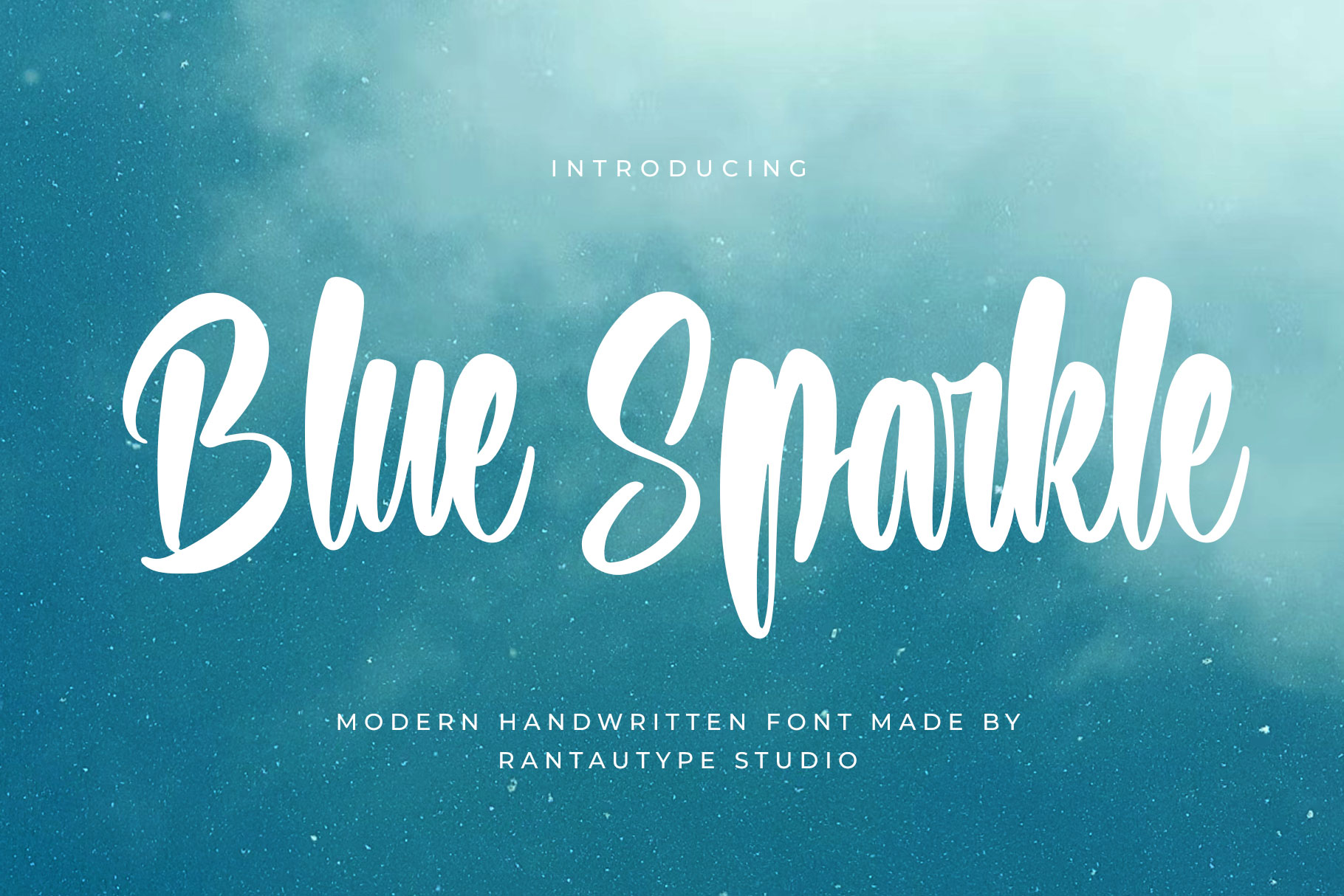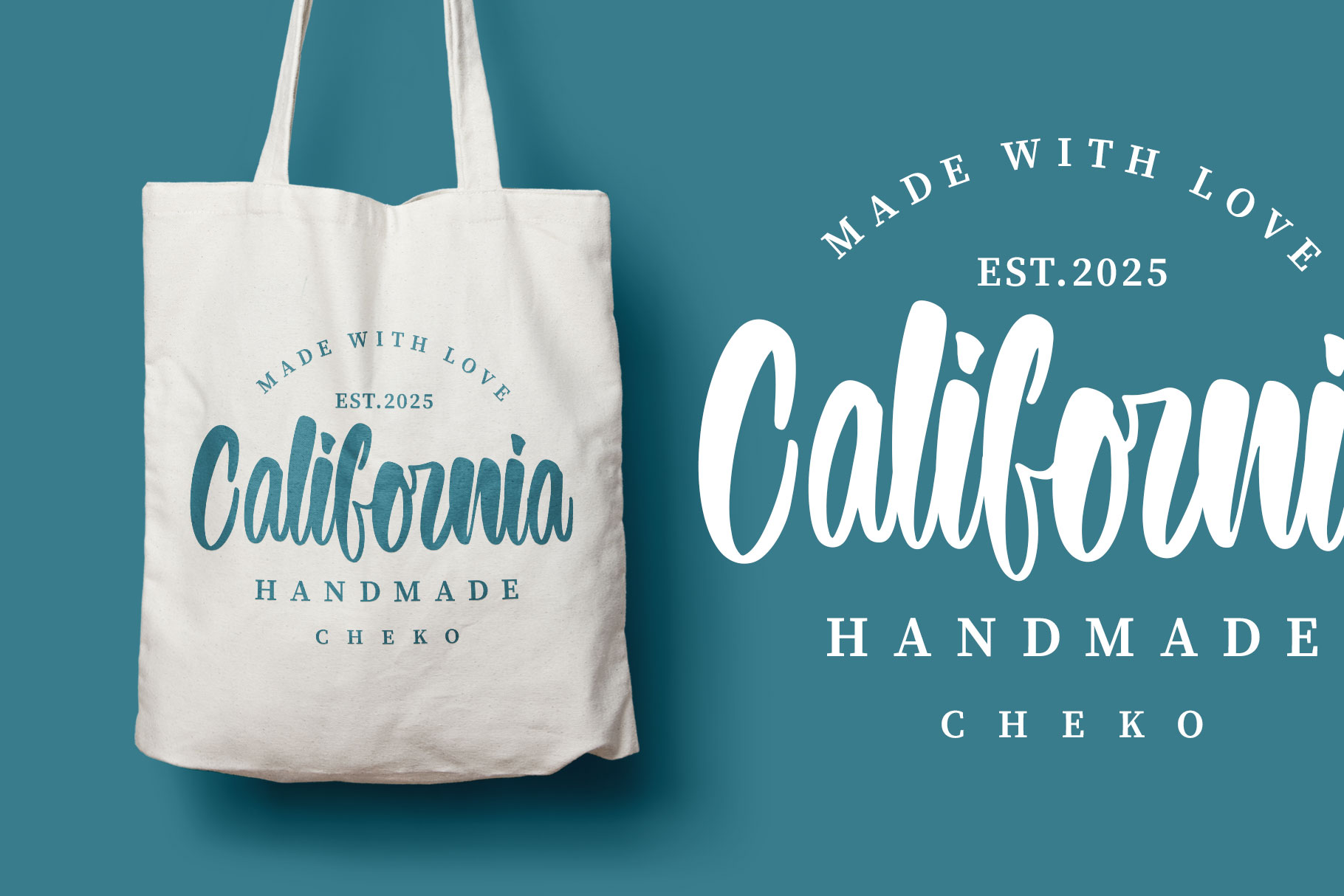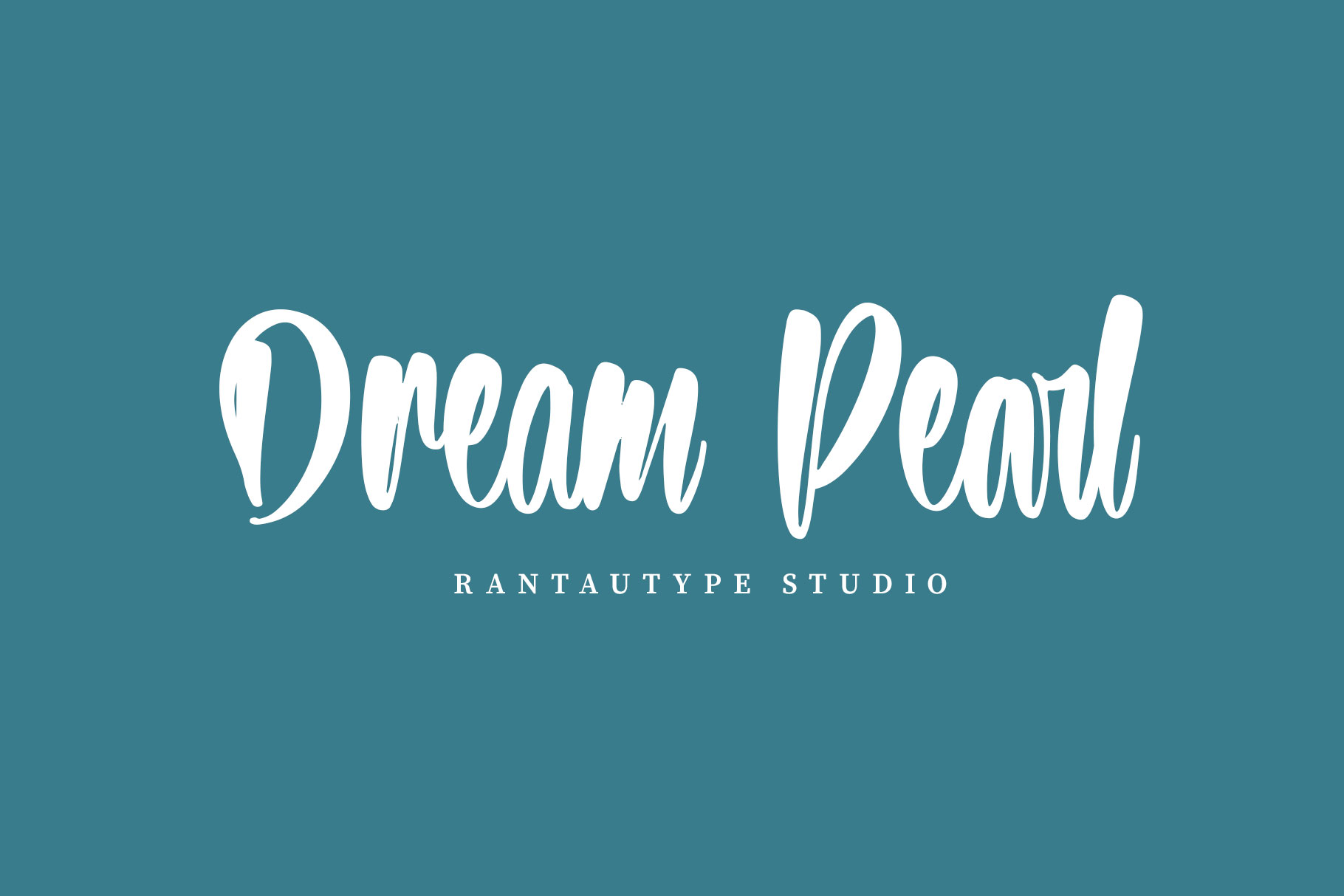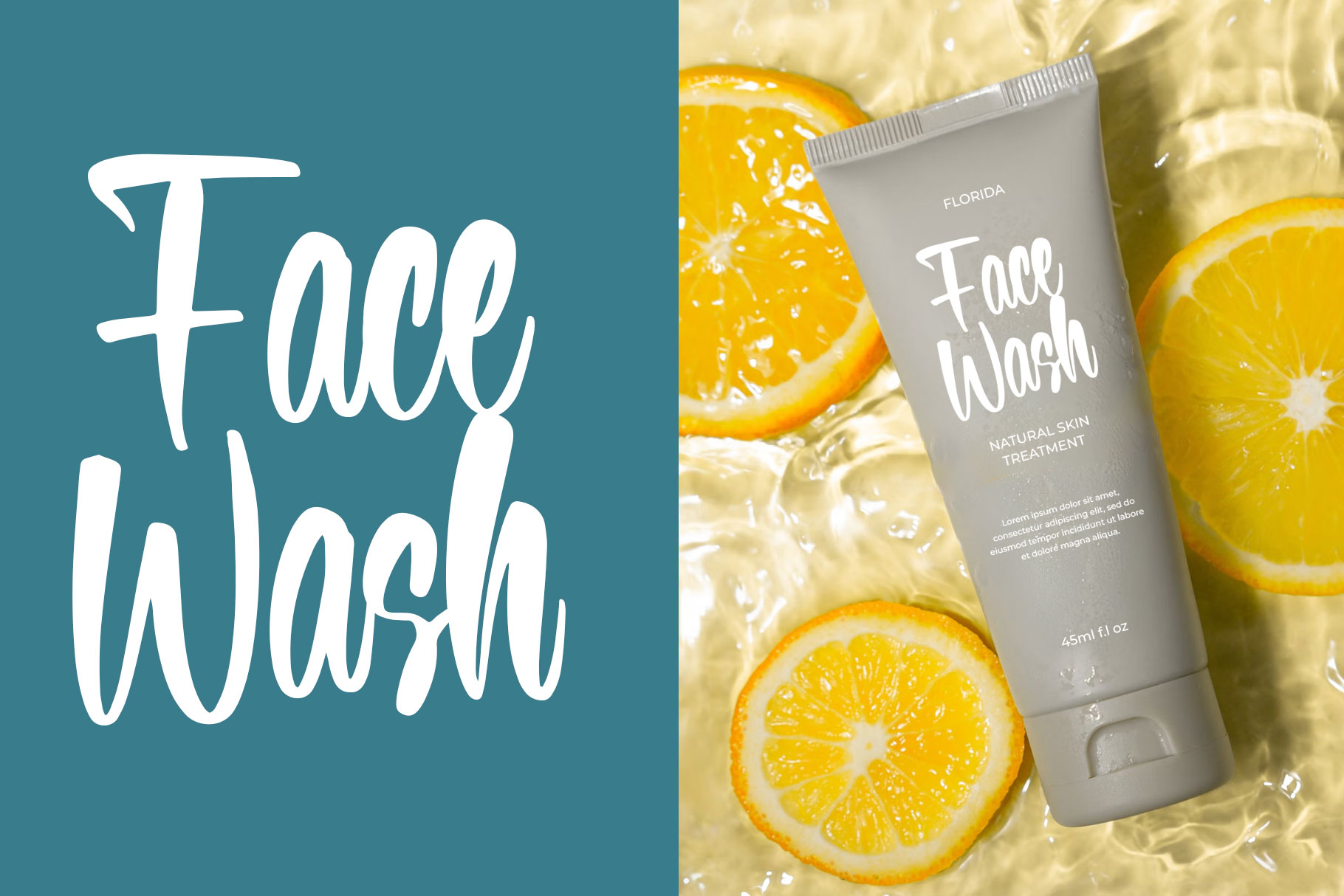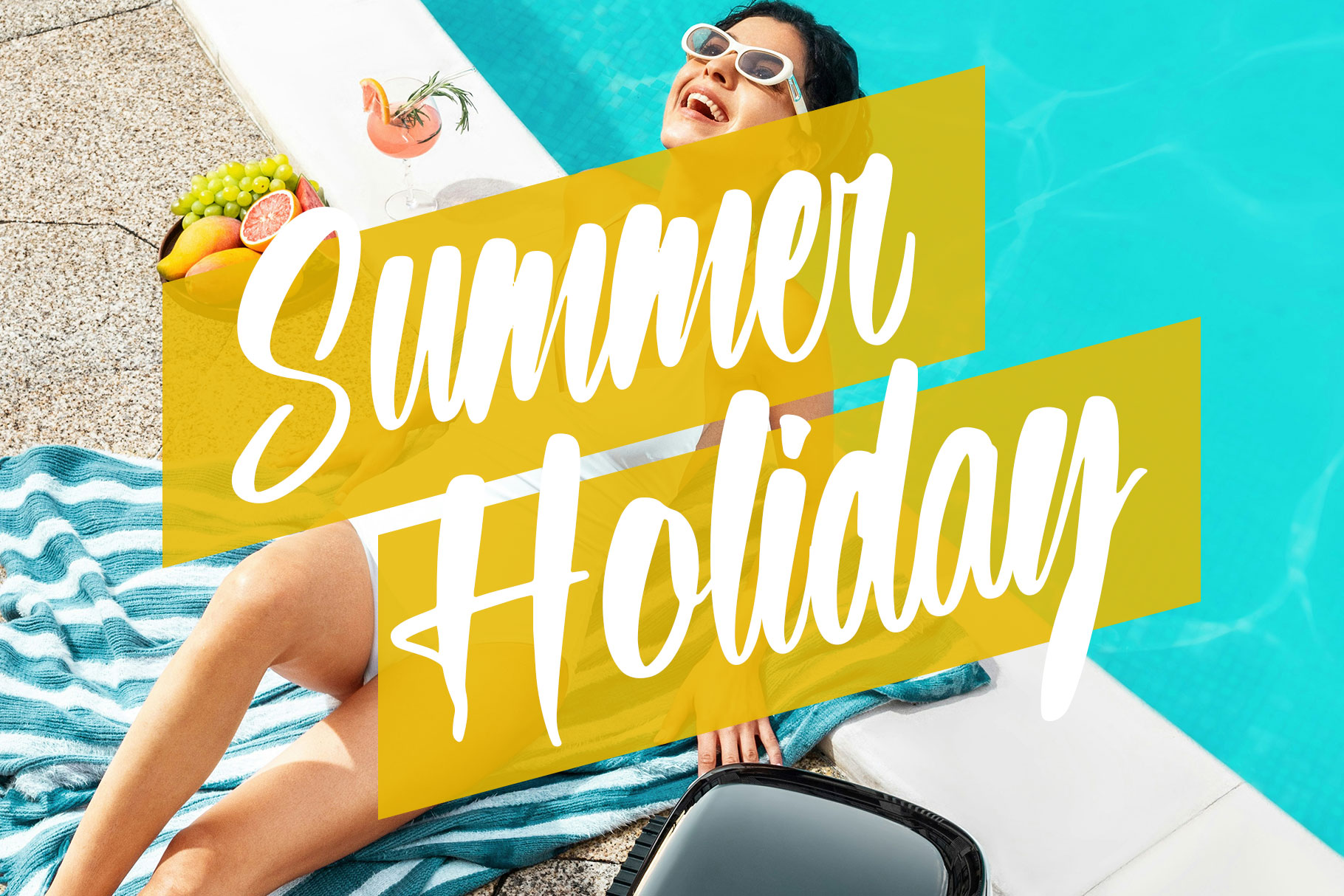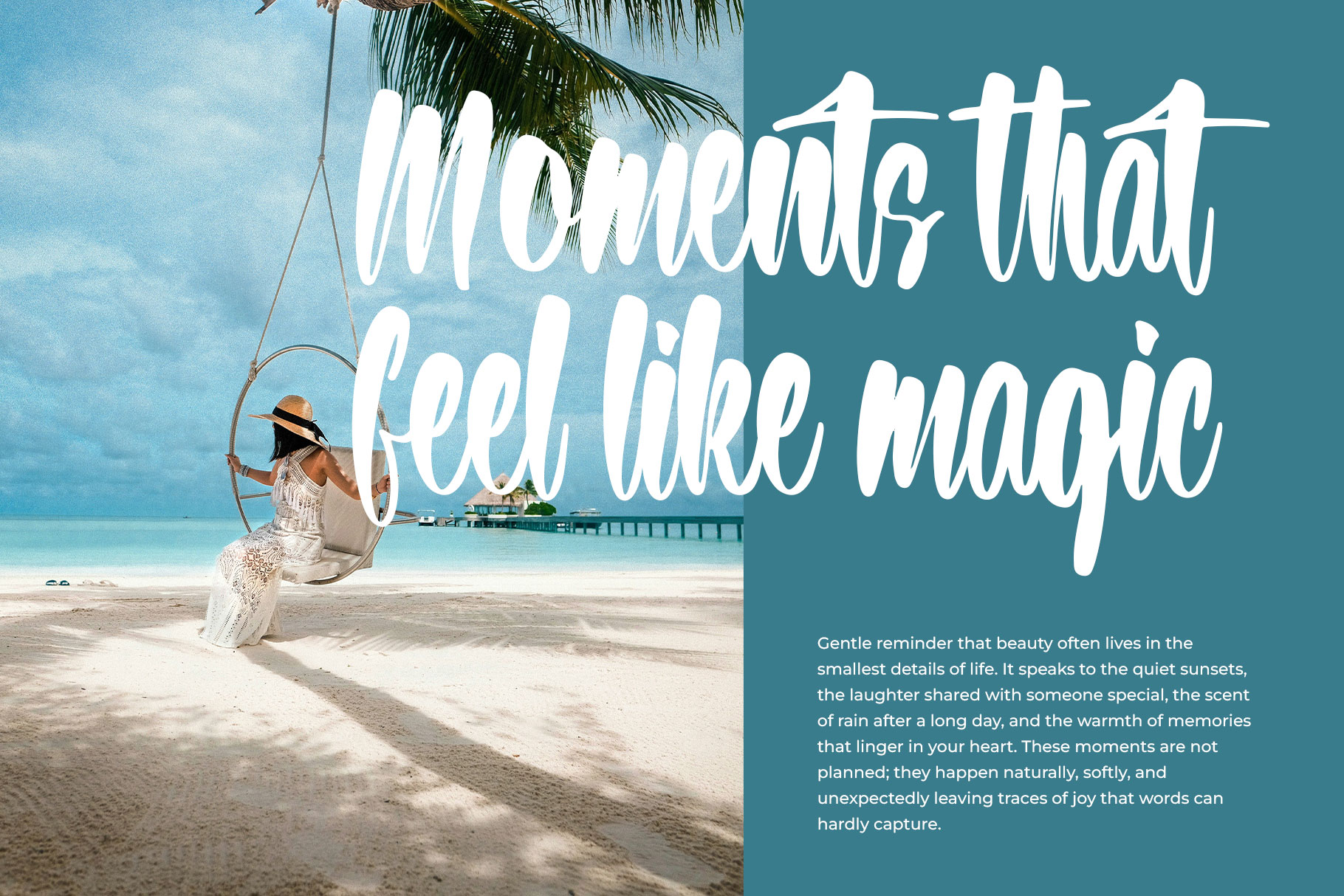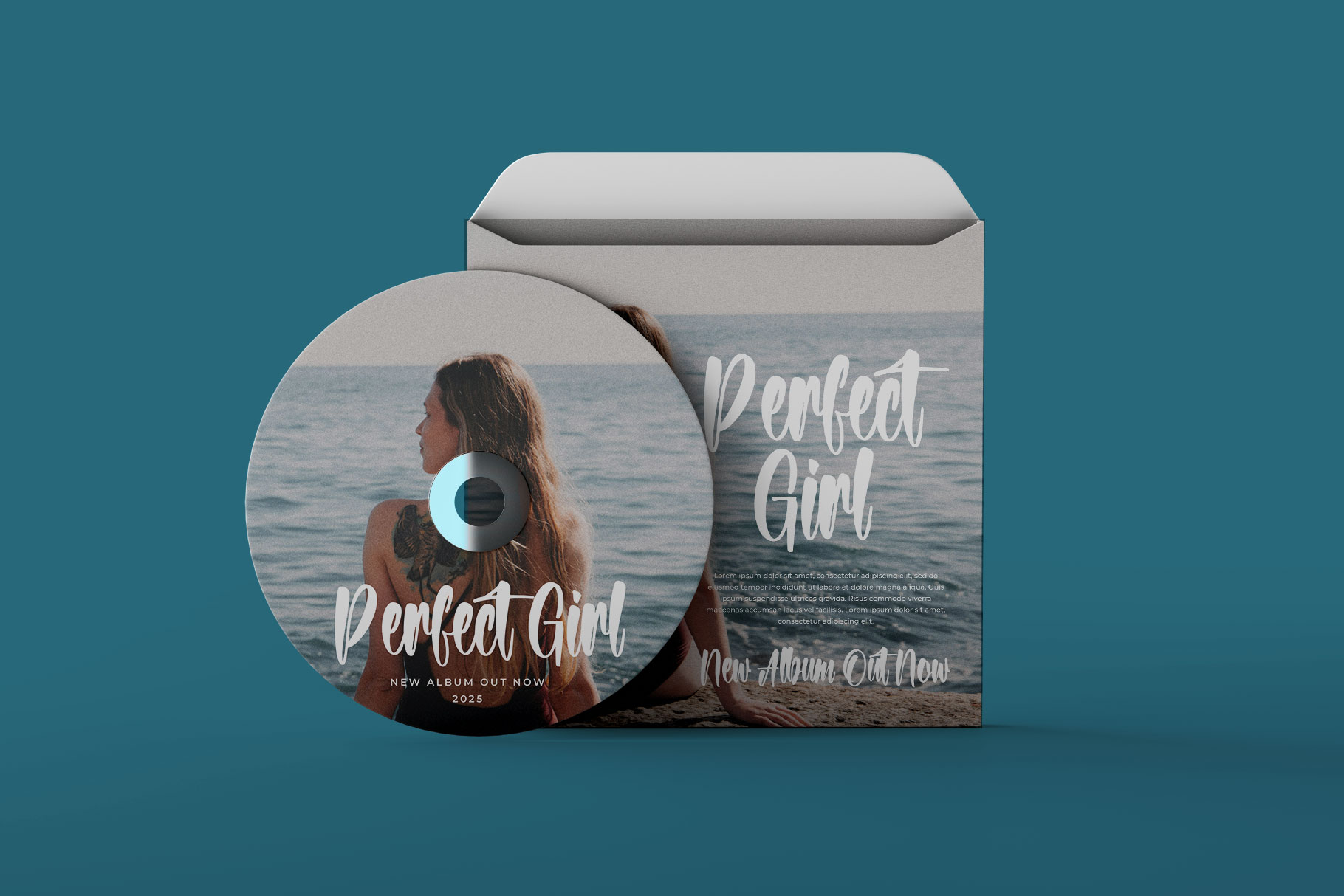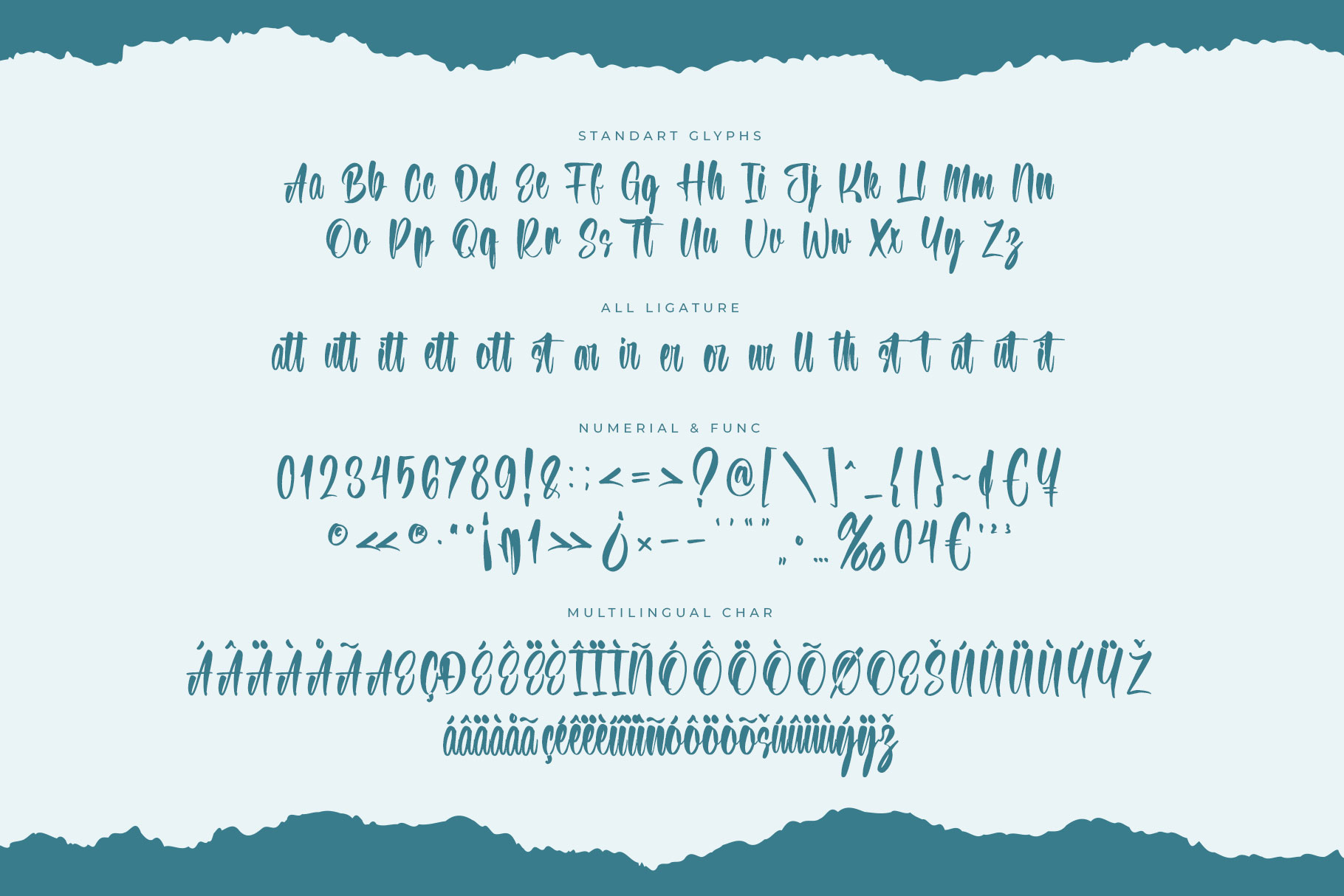
Blue Sparkle Modern Handwritten Font
Blue Sparkle is modern handwritten font with perfect balance between contemporary style and personal charm. Every curve and stroke is carefully crafted to express warmth, authenticity, and creativity making it ideal for designs that speak from the heart.
Blue Sparkle is a perfectly choice for any creative endeavor, chic, lifestyle design such as logotype, advertisements, watermark on photography, stationery, branding project, display and magazine, invitation, corporate brand, product design, label, business project and many other project with modern touch.